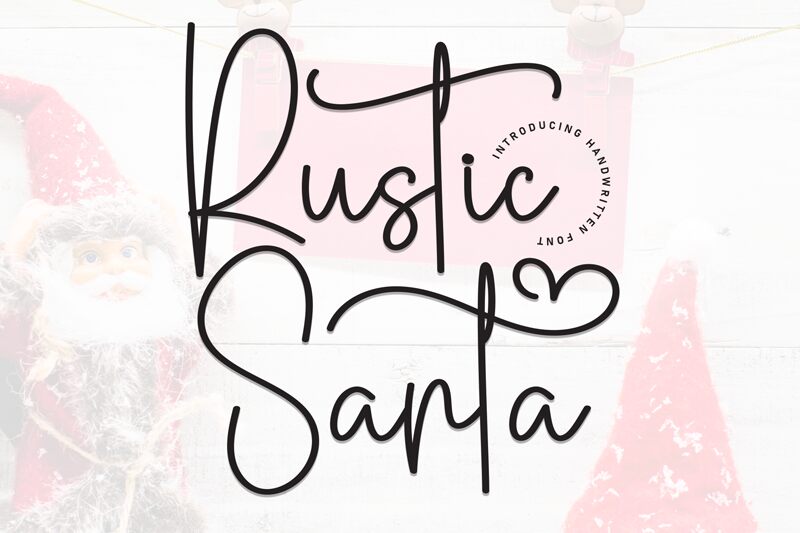
Rustic Santa
Rustic Santa font by Scratchones is a light handwritten font that balances casual elegance with an artistic flair. Delicate strokes and contemporary touch define this typeface, which is also able to convey some relaxed mood in different contexts. Along with its homogeneity, it’s perfect for viewers who want to enjoy a nice smooth reading experience.
Use Rustic Santa on hand-drawn illustrations, book covers, invitations, diaries and memoirs, postcards and greeting cards, branding designs for skincare brands or candles. It can as well be perfect on cosmetics packaging design projects that require subtle modern typography ideas.